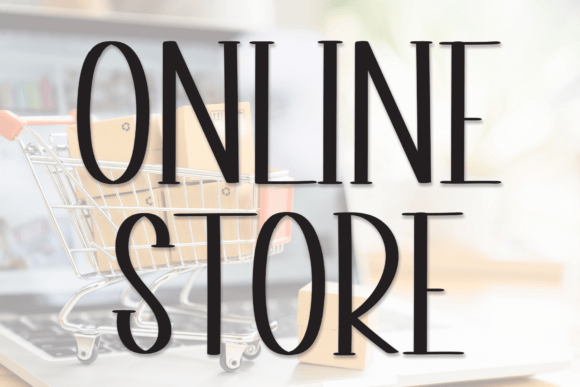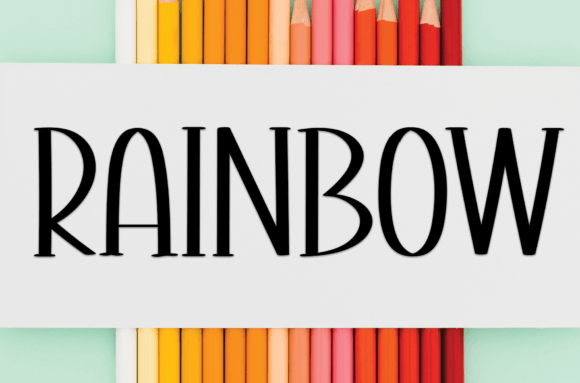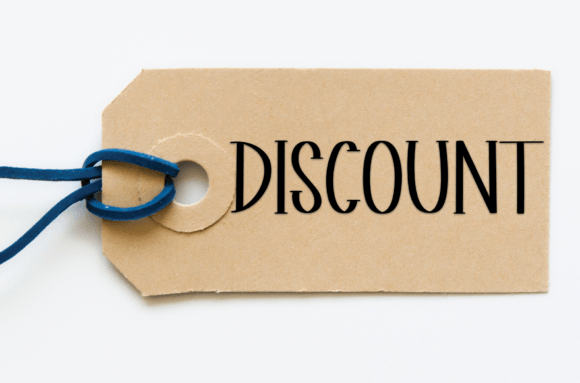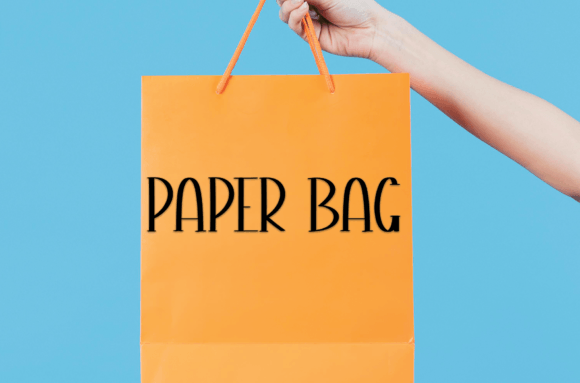
About Online Store Font
Online Store is a sweet and friendly handwritten font that radiates warmth, charm, and a relaxed vibe. Carefully crafted with a casual feel, this font is the perfect companion for projects that need a personal and lovely touch. Whether you’re designing wedding invitations, greeting cards, product labels, or social media graphics, Online Store adds an inviting and natural feel to every piece.
The flow of each character makes this font not only legible but also expressive. Its handwritten style brings authenticity to your designs, making your message feel genuine and heartfelt. It’s a font that doesn’t shout — it speaks kindly and warmly.
Ideal for Creative & Personal Projects
Online Store is incredibly versatile. Whether you’re an entrepreneur, crafter, or designer, this font is made to adapt and perform beautifully across various use cases:
Wedding Invitations & Save-the-Dates – Romantic and soft in tone
Greeting Cards & Thank You Notes – Add a human and warm touch
Social Media Posts – Inspirational quotes, promotions, or personal messages
Product Packaging – Handmade goods, food labels, self-care products
Online Store Branding – Perfectly matches Etsy shops, boutiques, and artisan labels
Blog Graphics – Feminine or lifestyle blog headers, callouts, or pull quotes
Crafting Projects – Stickers, planners, scrapbooks, and DIY gifts
Whether you’re communicating love, gratitude, joy, or inspiration, Online Store helps you say it with personality and softness.
Uppercase and lowercase letters
Numerals & punctuation
Clean, modern script with a casual handwritten flair
Multilingual support included
Its simplicity makes it powerful, while its handcrafted appearance ensures uniqueness. The font pairs well with minimal sans-serifs or elegant serif fonts for creative contrast.
Why Choose Online Store Font?
Designers love Online Store because it captures the beauty of handwriting without sacrificing clarity. It creates an approachable and relatable tone, perfect for brands and creatives who want their work to feel real and heartfelt.
For small business owners running an online store, this font fits the vibe. It feels honest, warm, and crafted — just like your products. If you’re selling handmade goods, lifestyle products, or personalized gifts, this font reinforces your brand’s authenticity.